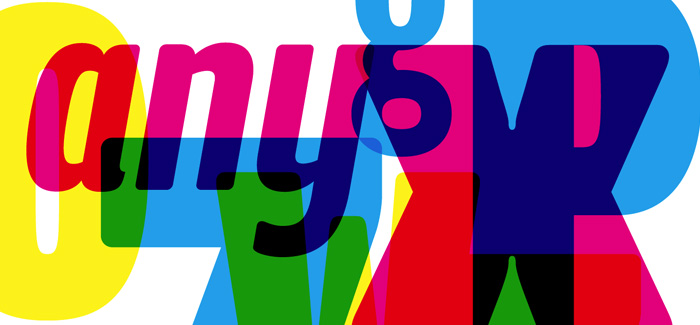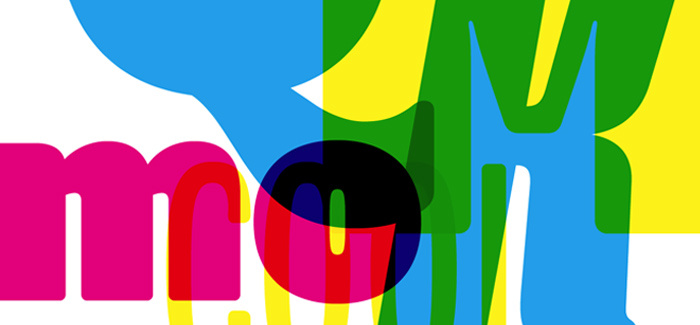
Program font
Program font is a type designer’s typeface. It’s about the craft of typeface design and the particular details and effects that type designers fret over when they design type. It mixes different structures, stem endings, and weight distributions not usually employed in a single family of fonts. Program font features both rounded edges evoking the effects of reproduction, and ink traps, the technique used to counteract that effect. The idea was to create a series of fonts with strong individualistic features, challenging the constraints of a central theme that is usually imposed on a family of fonts, while still relating to each other in terms of overall look and feel.
Designers: Zuzana Licko
Publisher: Emigre